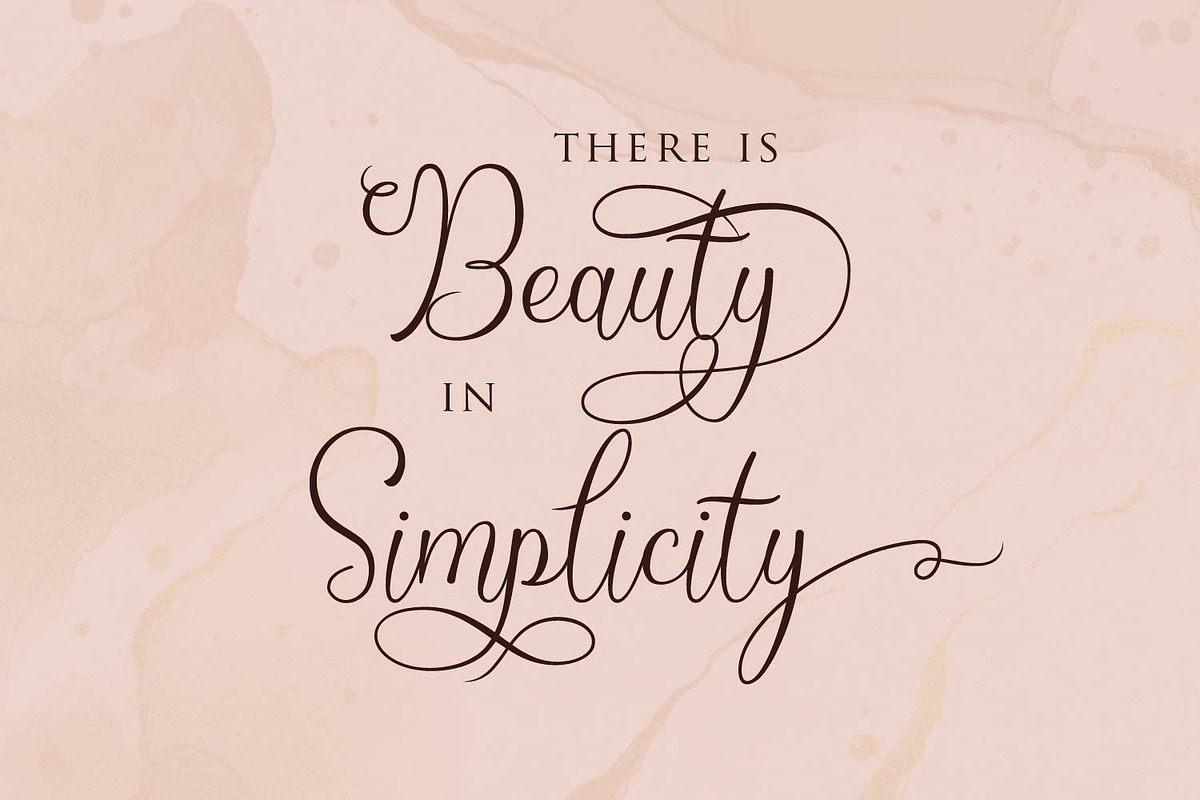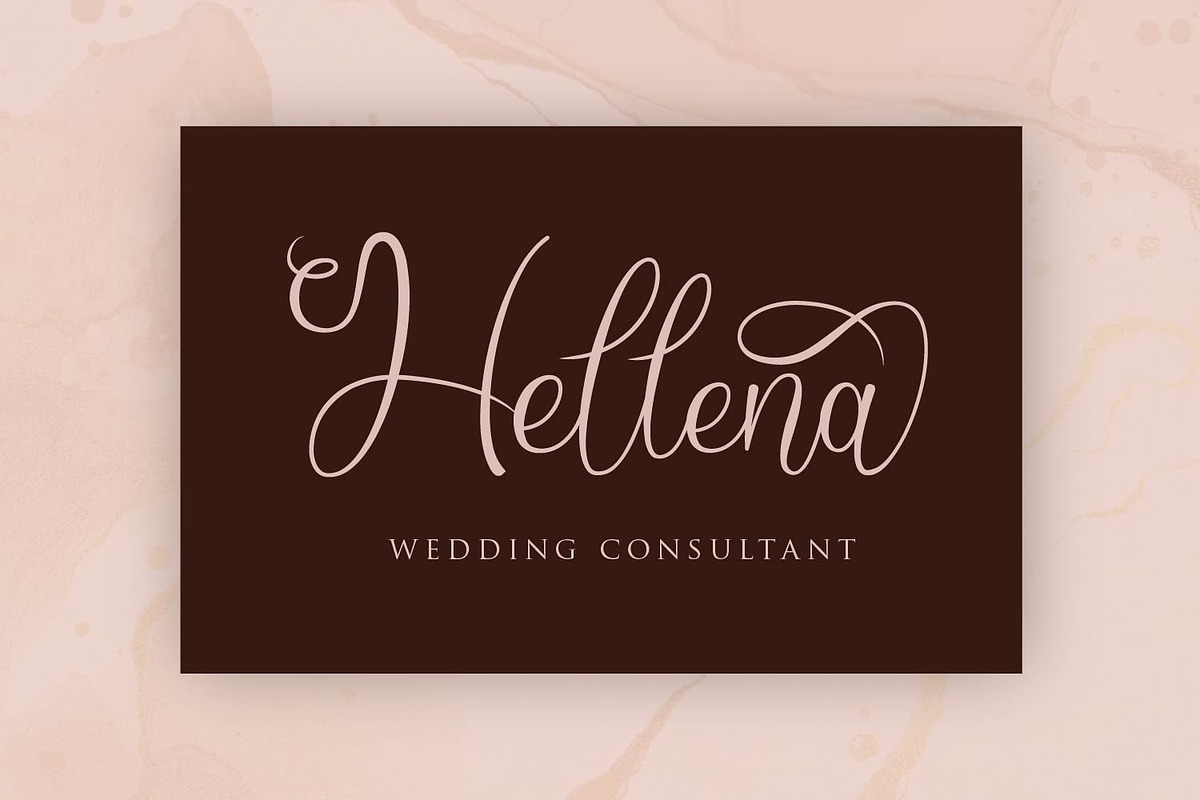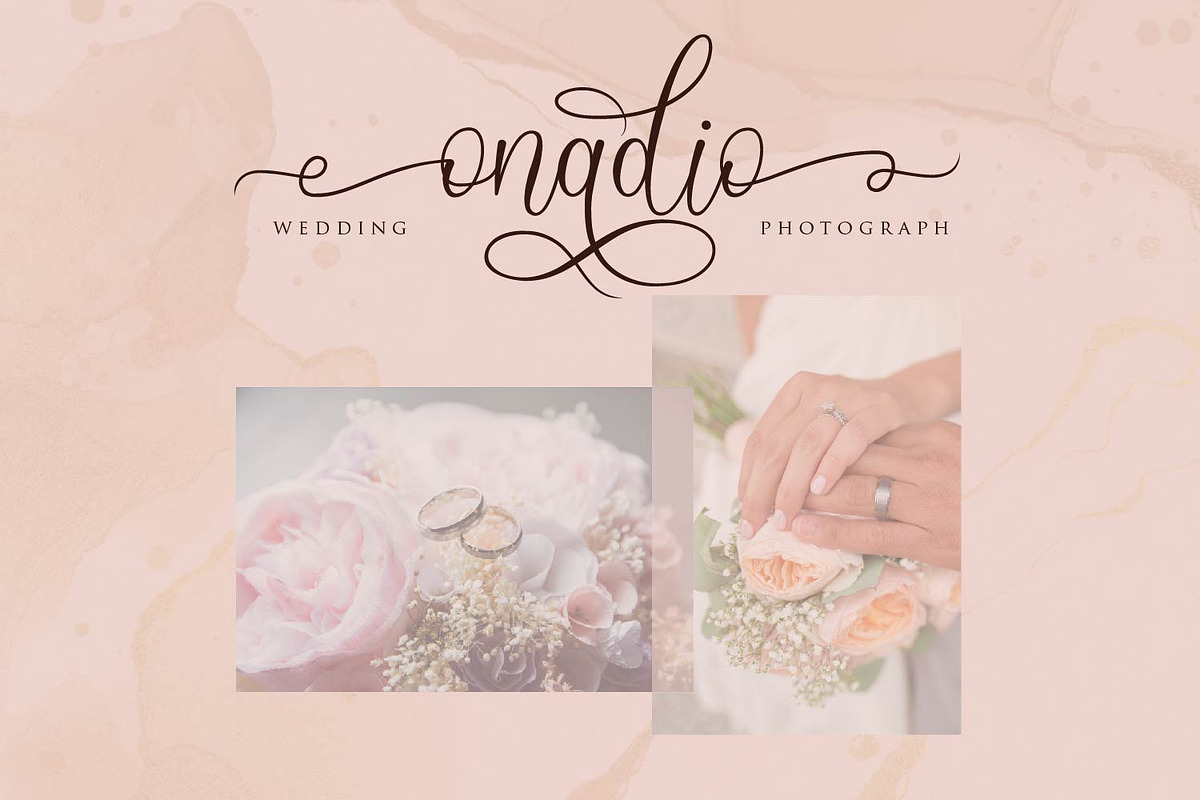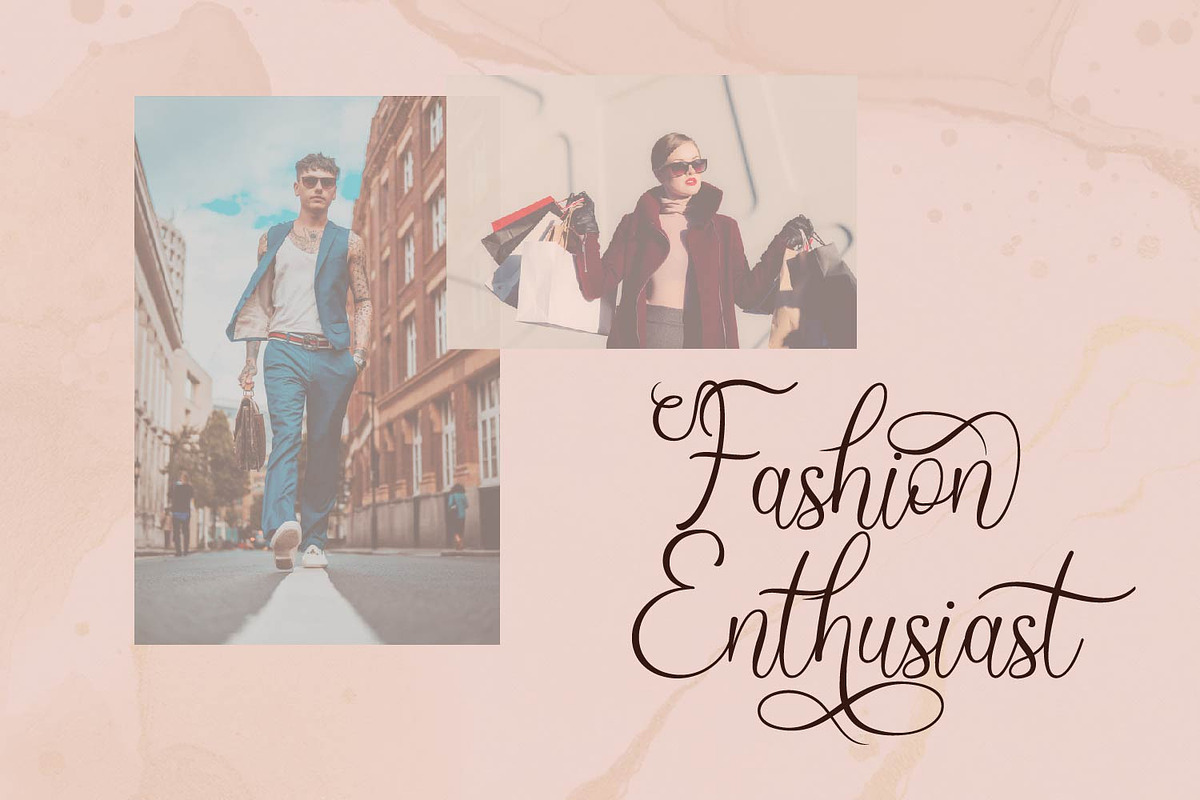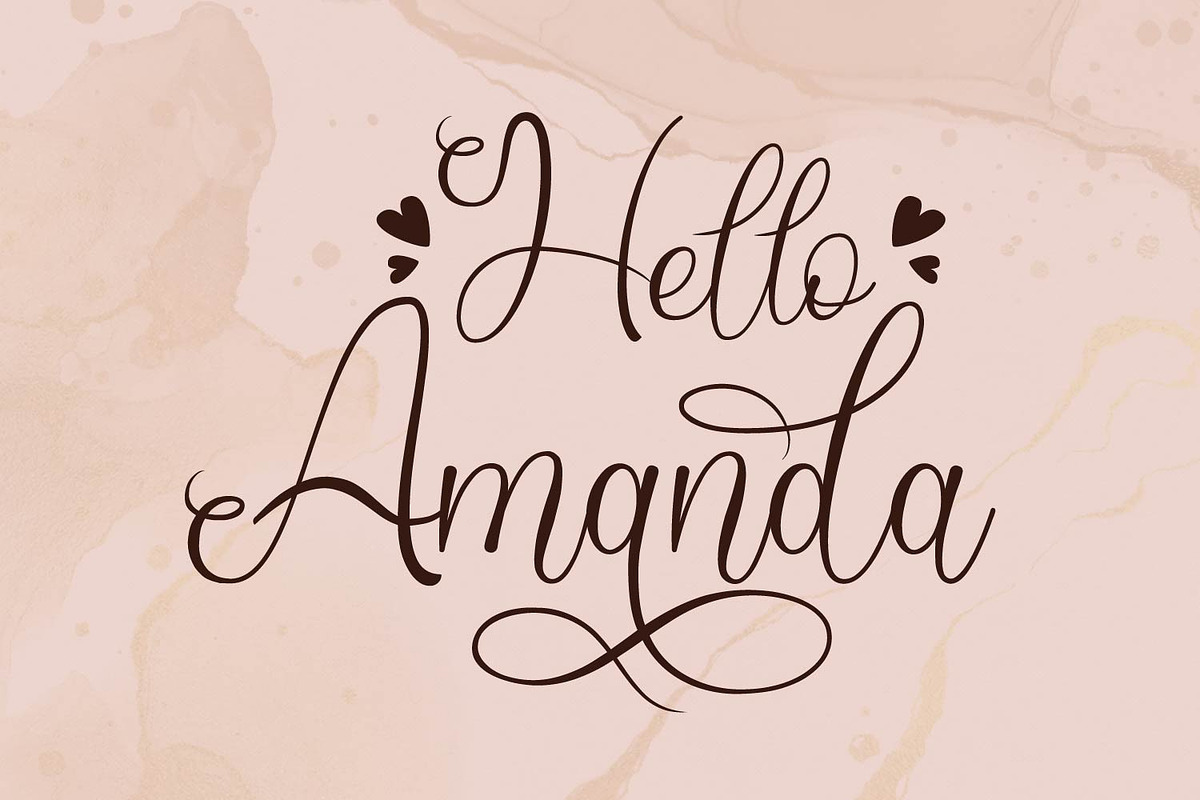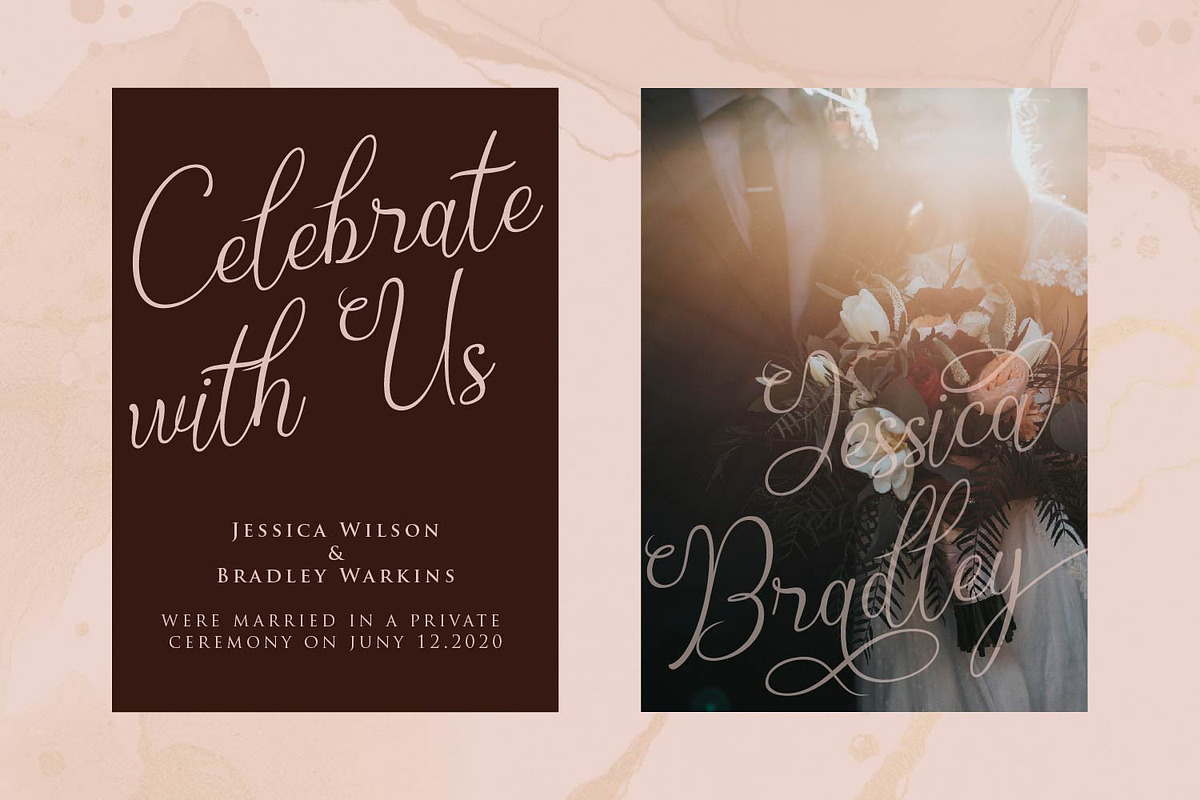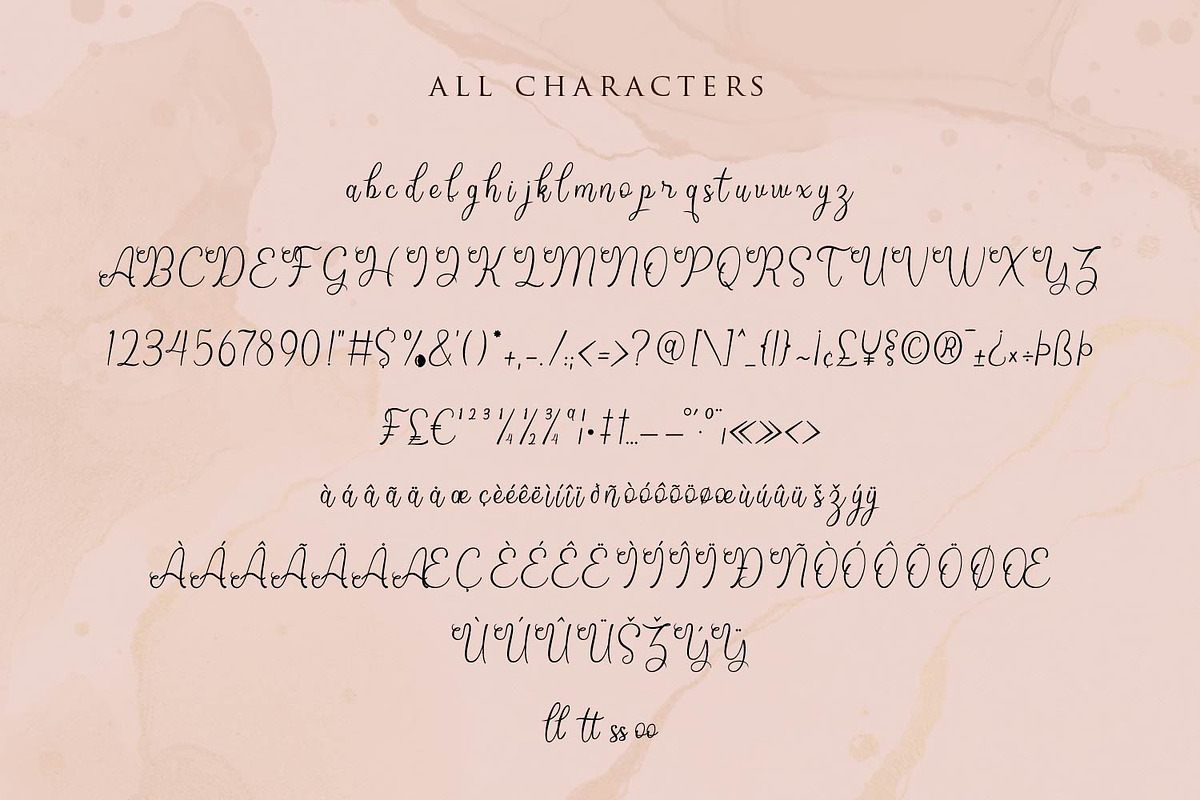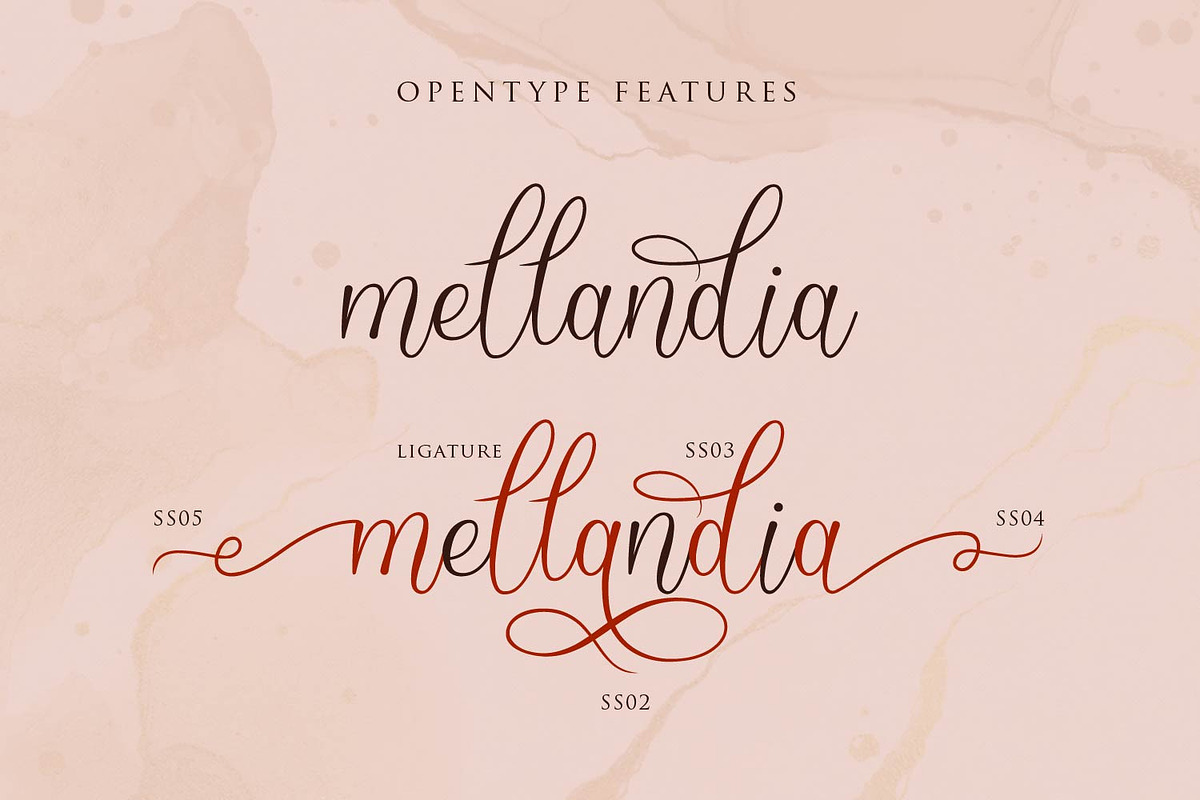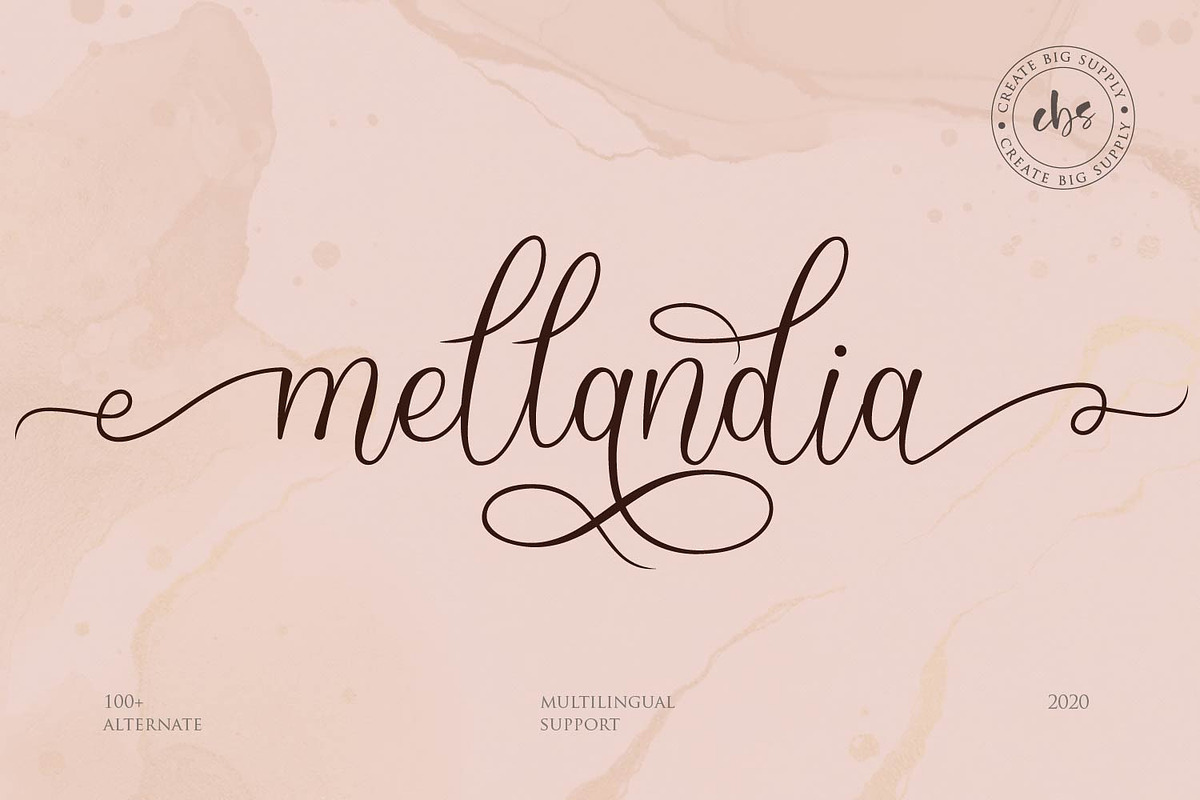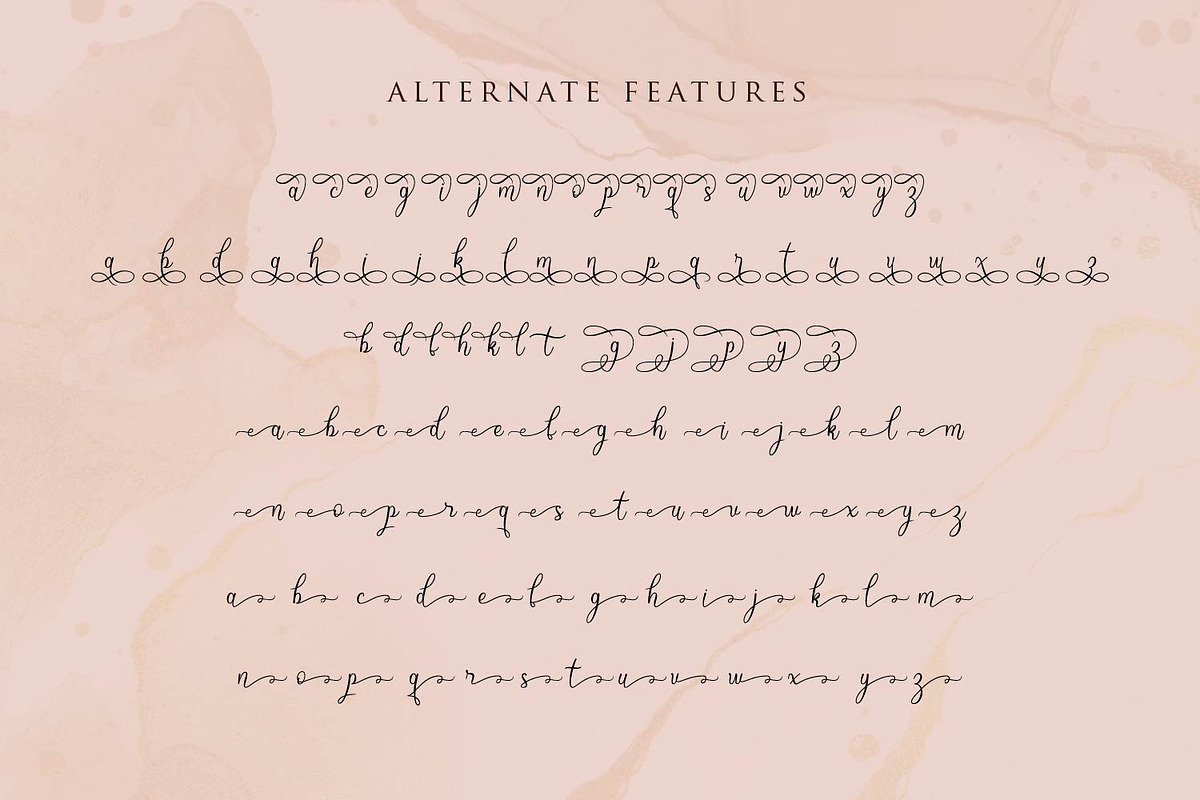
Mellandia
Mellandia is a gorgeous script font with beautiful swashes. Get inspired by its unique flow and create lovely greeting cards, cute stationary, outstanding wedding invitations and much more! This font is PUA encoded which means you can access all of the cute glyphs and swashes with ease! It also features a wealth of special features including alternate glyphs and ligatures.